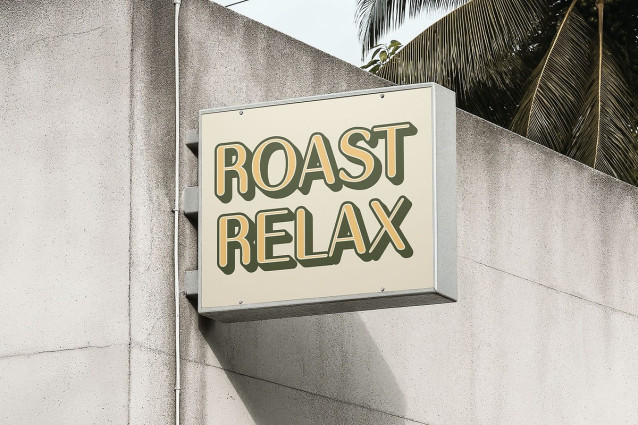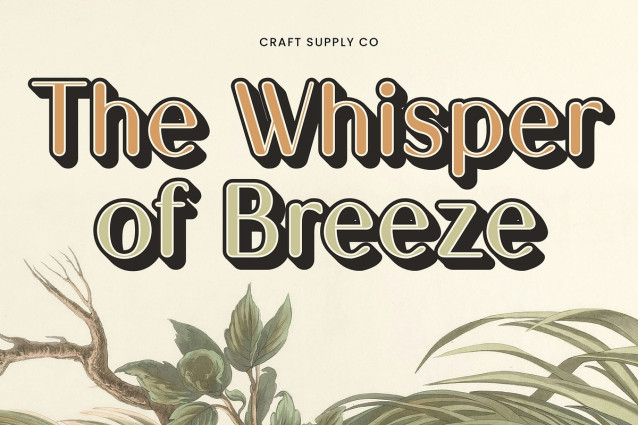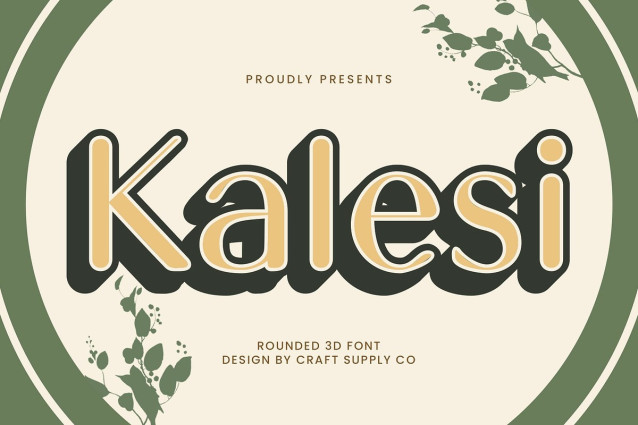
Kalesi Rounded 3D Font
Kalesi Rounded 3D is a modern sans-serif font that blends minimalism with a soft, approachable character. Its smooth, rounded corners and balanced proportions give it an elegant and friendly tone, ideal for contemporary designs that emphasize clarity, warmth, and sophistication.
Refined 3D Effect for Visual Impact What sets Kalesi Rounded 3D apart is its subtle yet striking 3D effect, adding depth and dimensionality without overpowering the font’s clean aesthetic. This enhancement creates a captivating visual presence that feels both modern and refined—perfect for grabbing attention in a tasteful and professional way.
Versatile for Creative and Professional Projects Its blend of soft geometry and stylish depth makes Kalesi Rounded 3D highly versatile, suitable for everything from tech branding and digital interfaces to elegant packaging and editorial layouts. The font’s modern charm and professional clarity make it an excellent choice for brands and projects aiming to balance approachability with visual sophistication.
Perfect for Designs that Prioritize Modern Appeal Whether you’re crafting a visual identity, product display, web design, or promotional content, this modern rounded font with 3d effect offers a fresh and polished look. It’s ideal for any creative project that seeks to communicate innovation, softness, and modern elegance in a single glance.